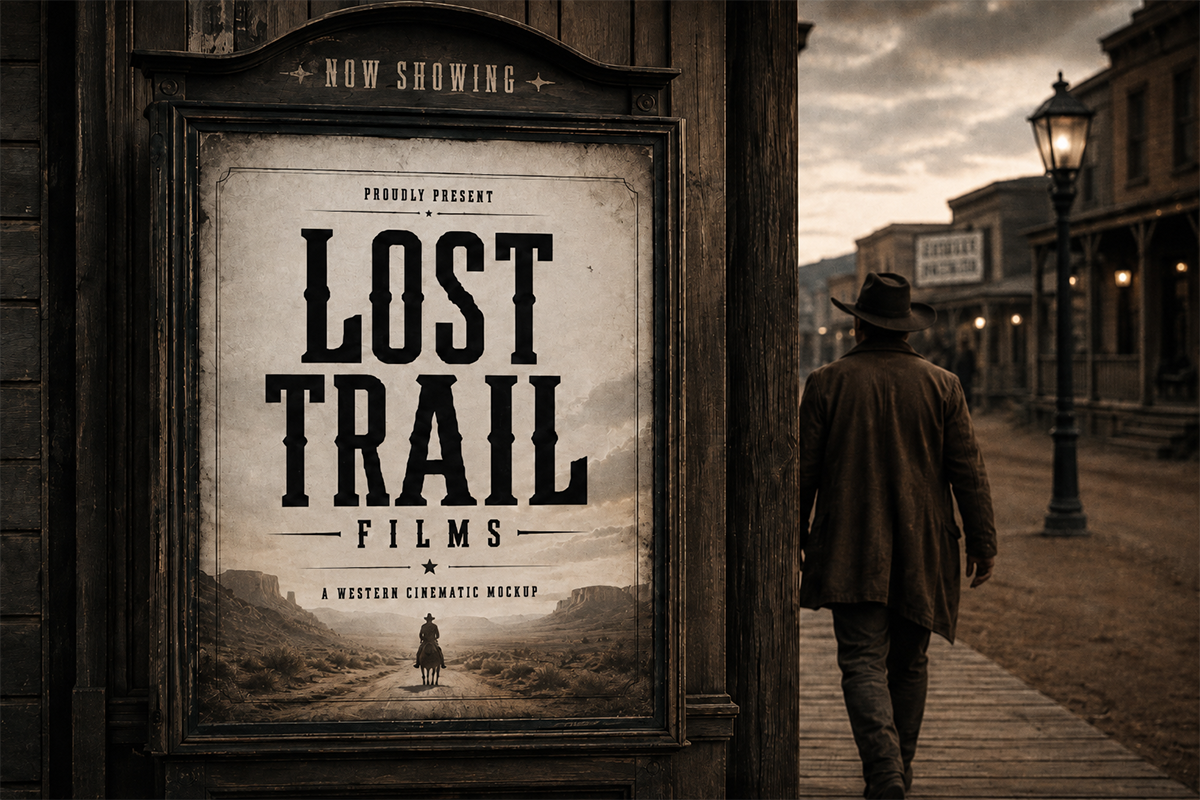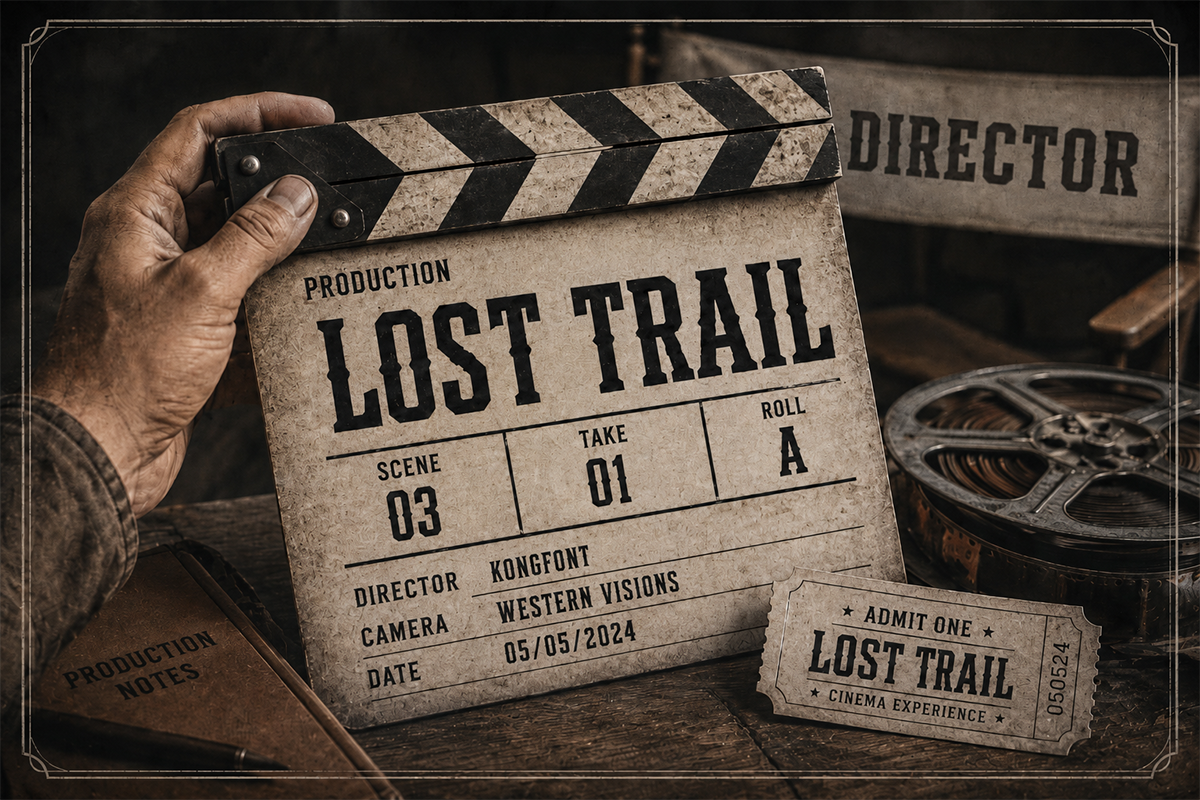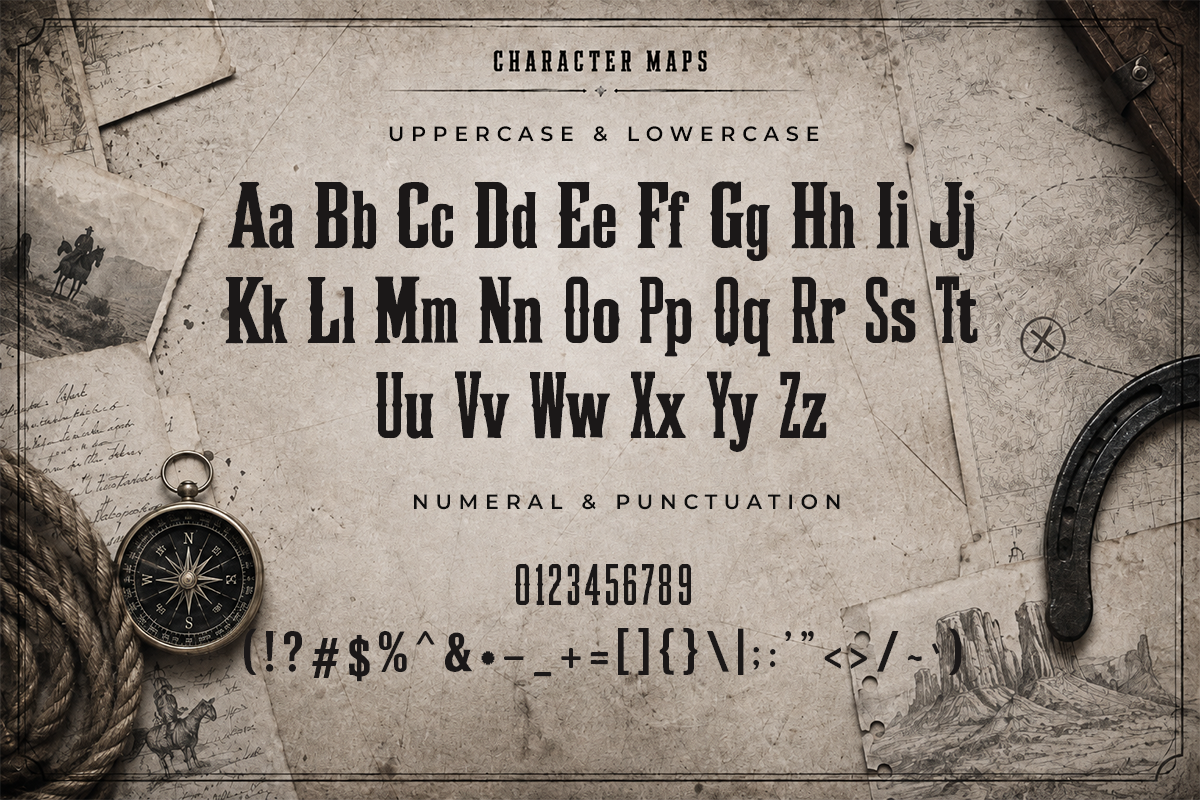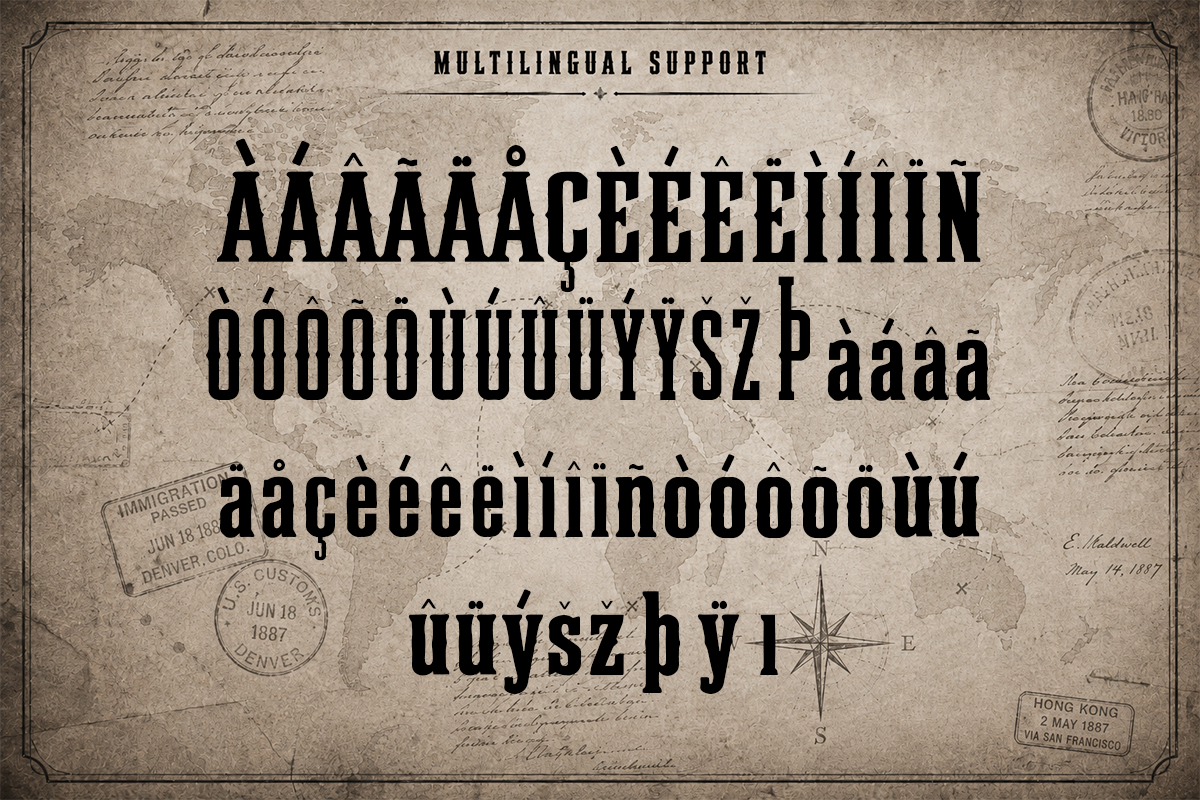
Lost Trail is a bold and rugged display font inspired by classic Western cinema, frontier landscapes, desert adventures, and the timeless atmosphere of the American Old West. Its strong slab-serif structure, angular details, and heavy weight give it an authentic cinematic presence with a tough and vintage character.
Designed for powerful headlines and memorable titles, Lost Trail is perfect for Western movie posters, film titles, cowboy branding, book covers, adventure artwork, vintage logos, posters, apparel, album covers, packaging, and promotional designs.